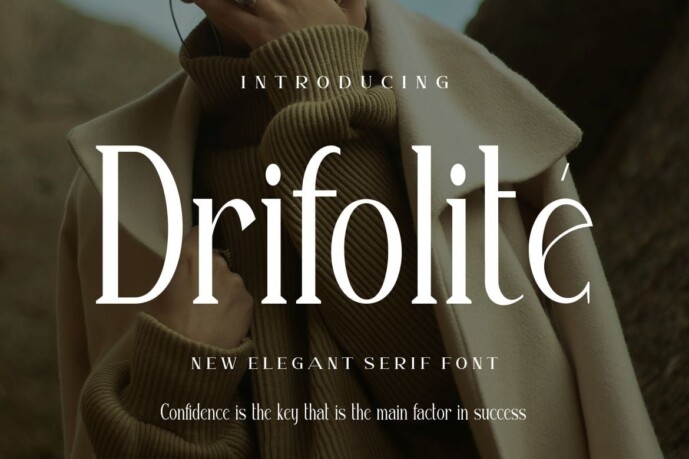
Drifolite Font
Designer: dellux_design
Drifolite is a unique font. Can make it easier to convey the message in your design. Use for awesome display, labeling, clothing, movie sceen, poster, movie title, gigs, album covers, logos, and much more.